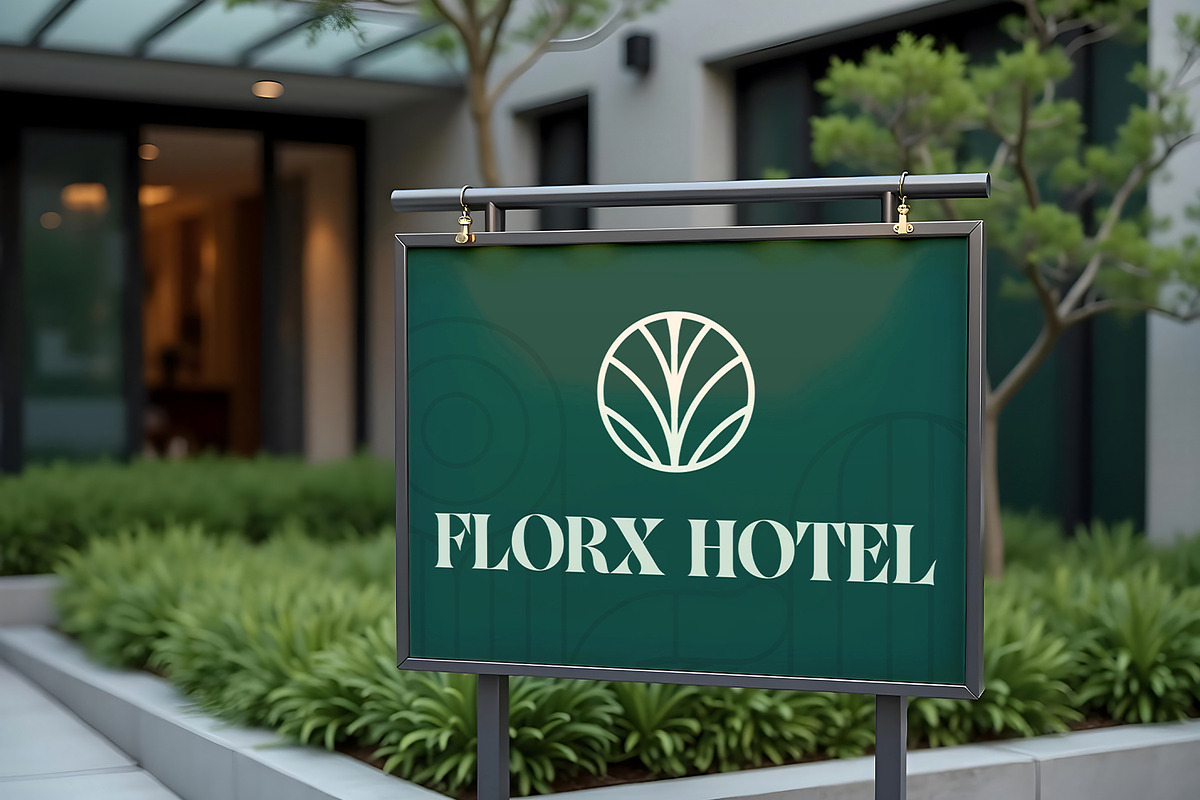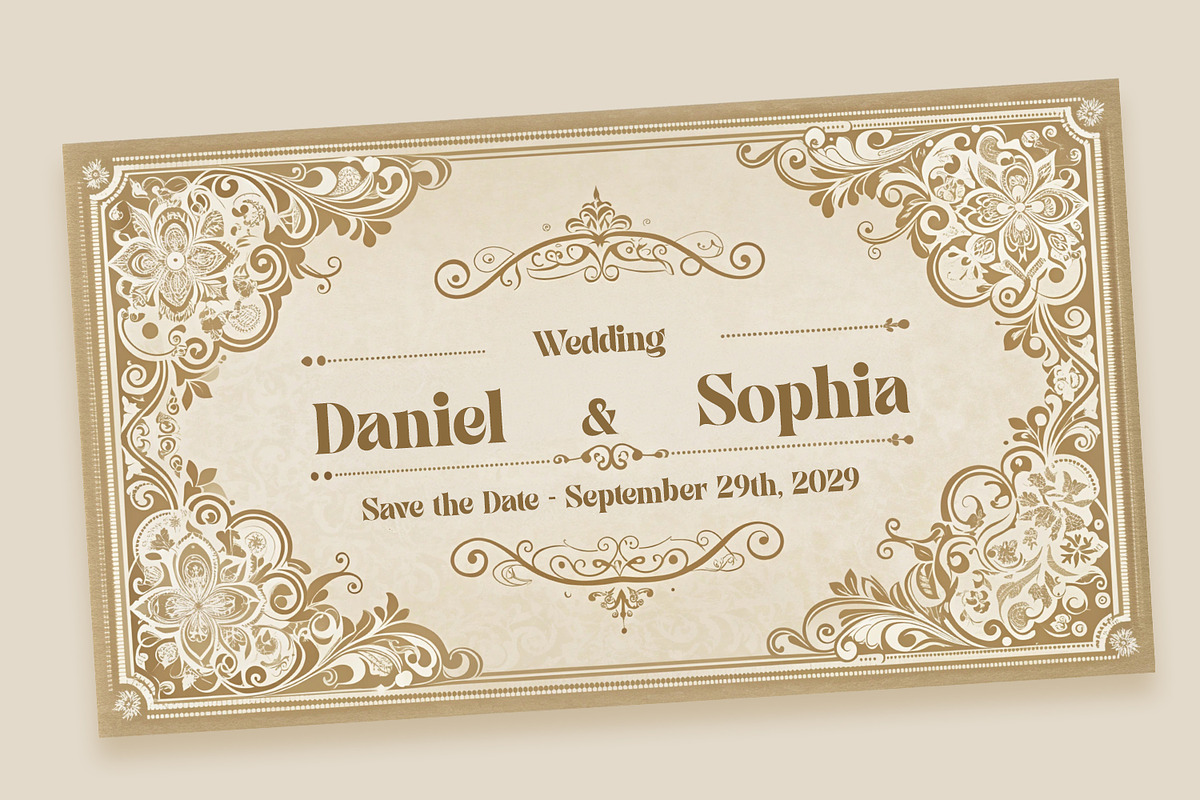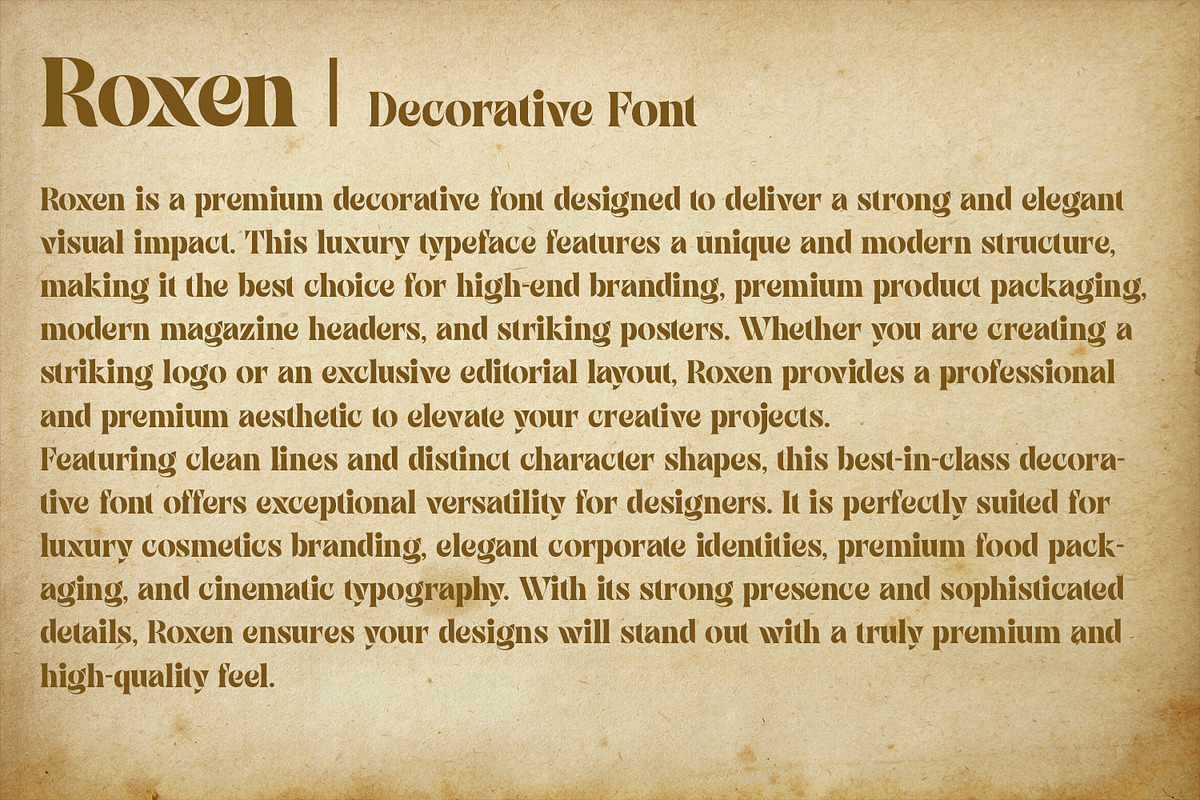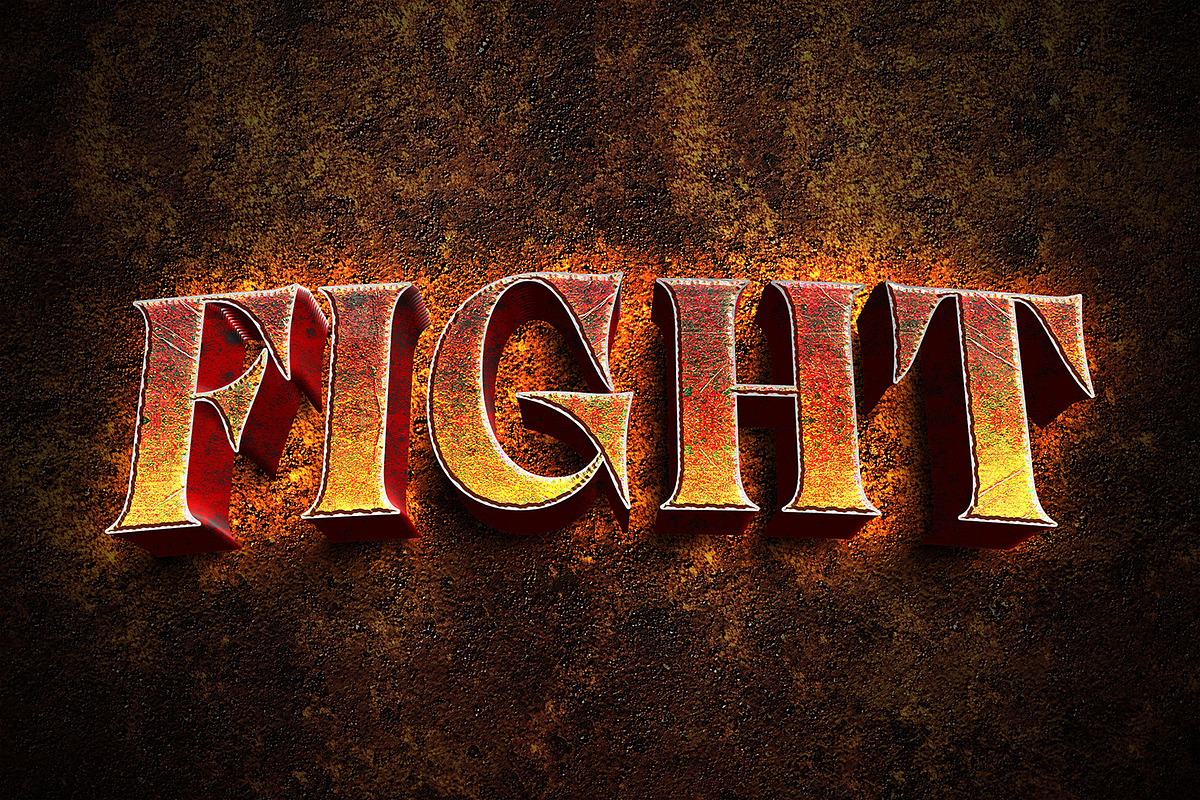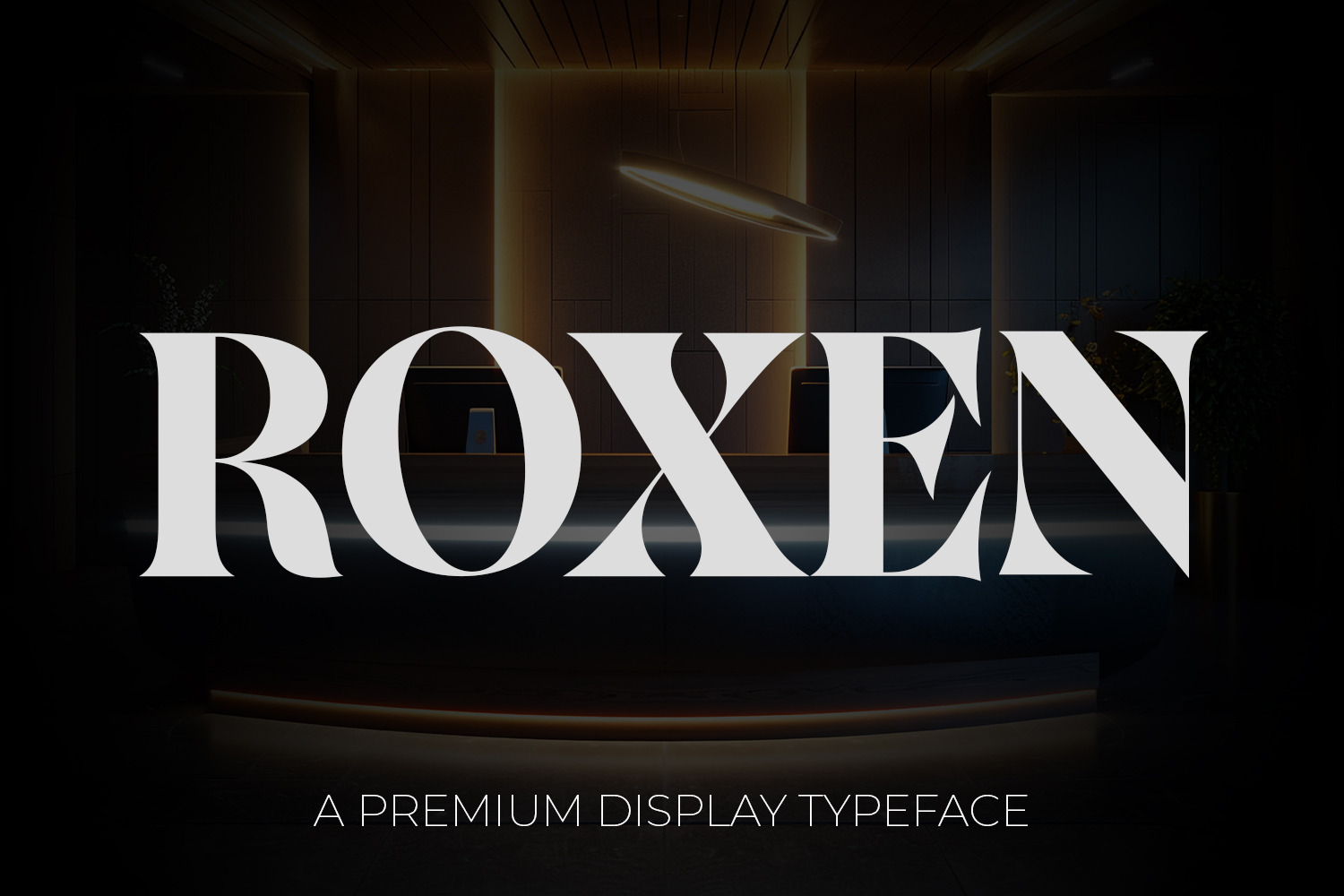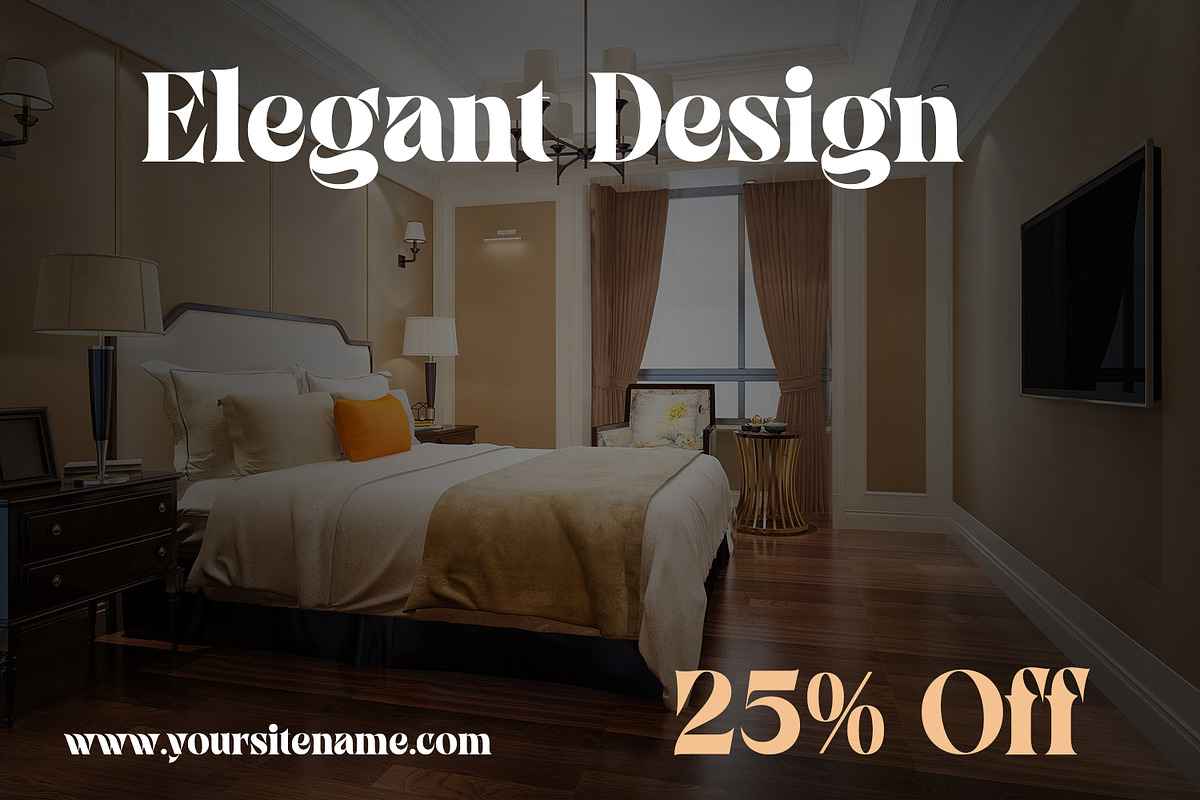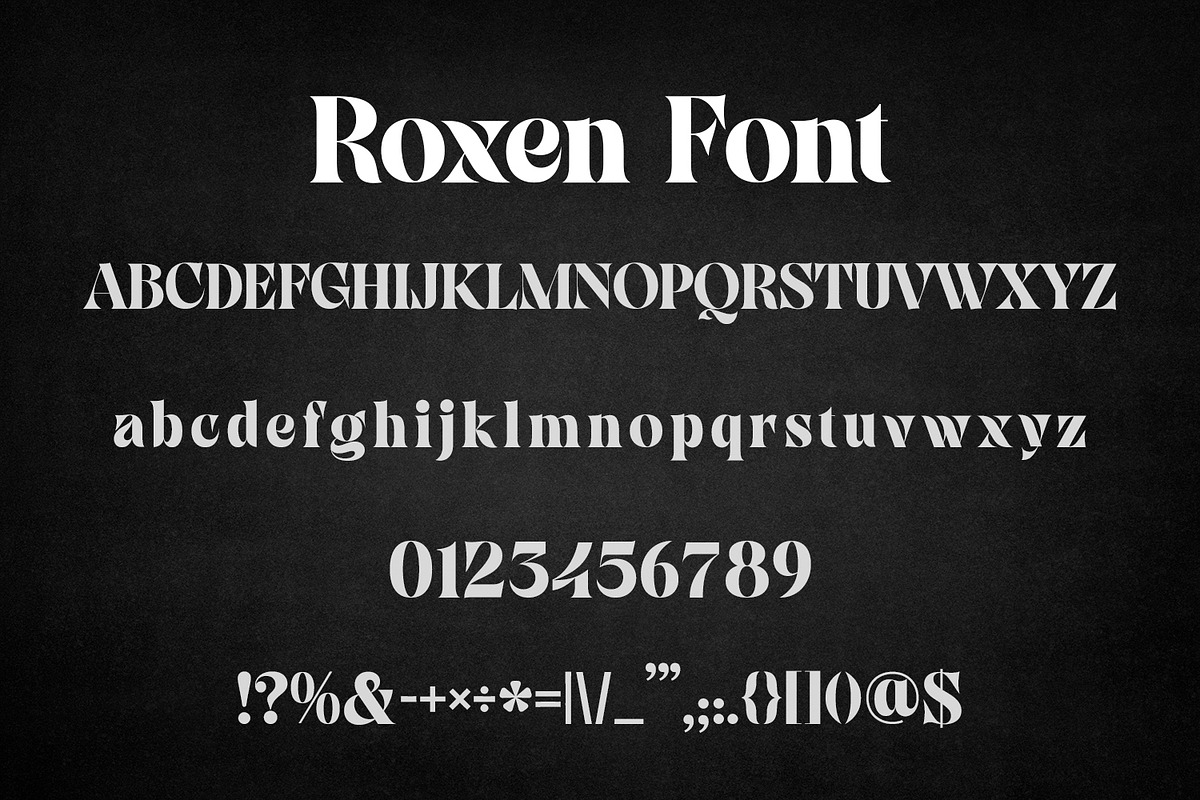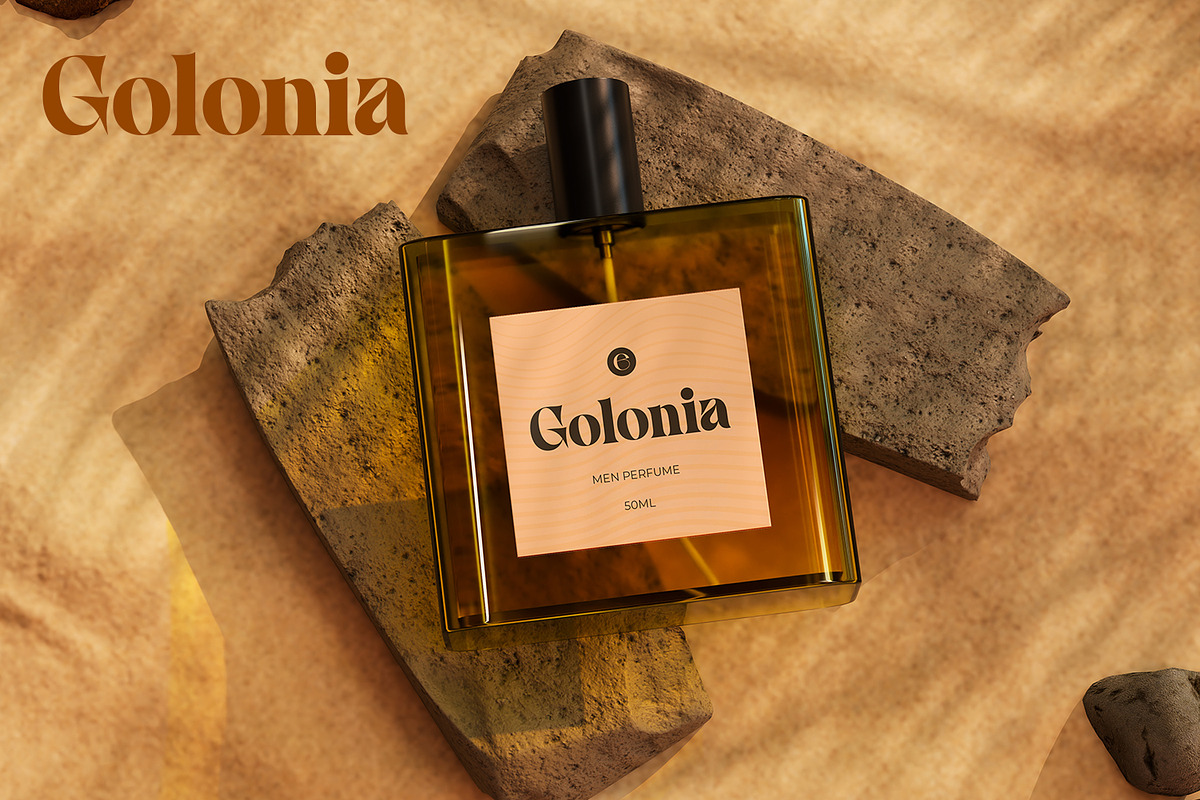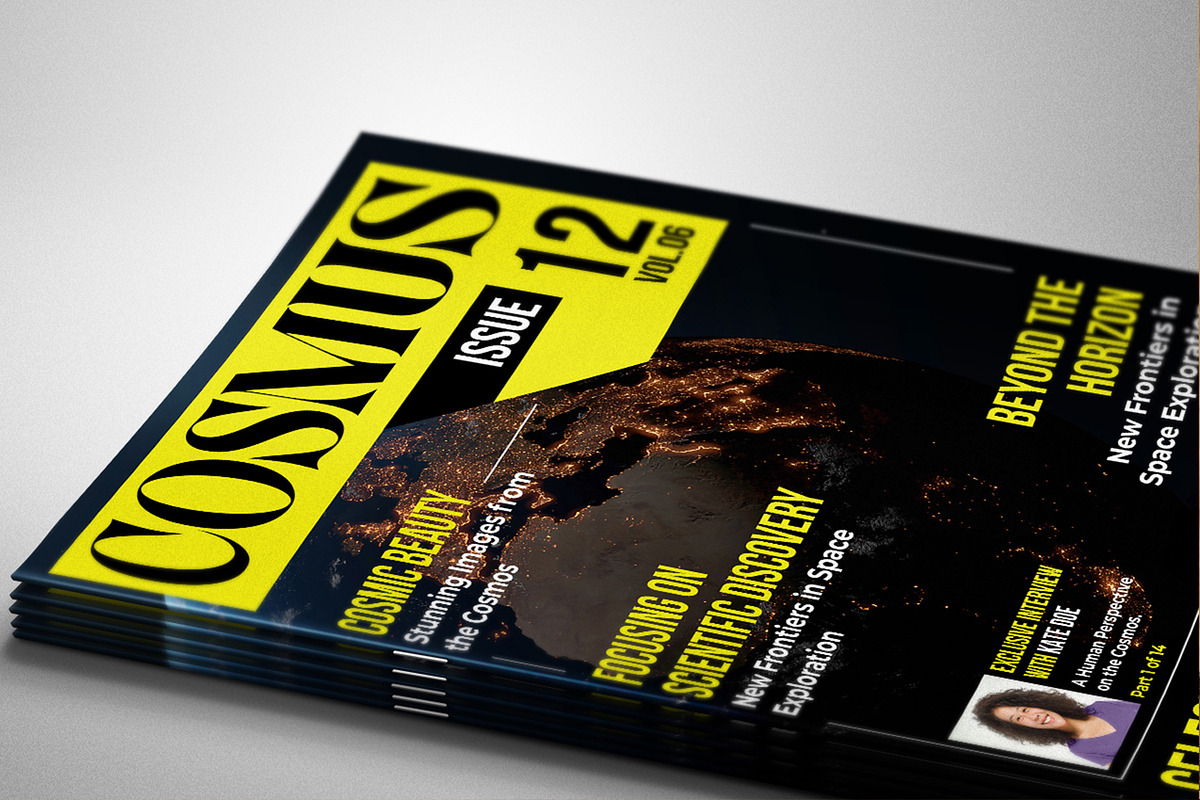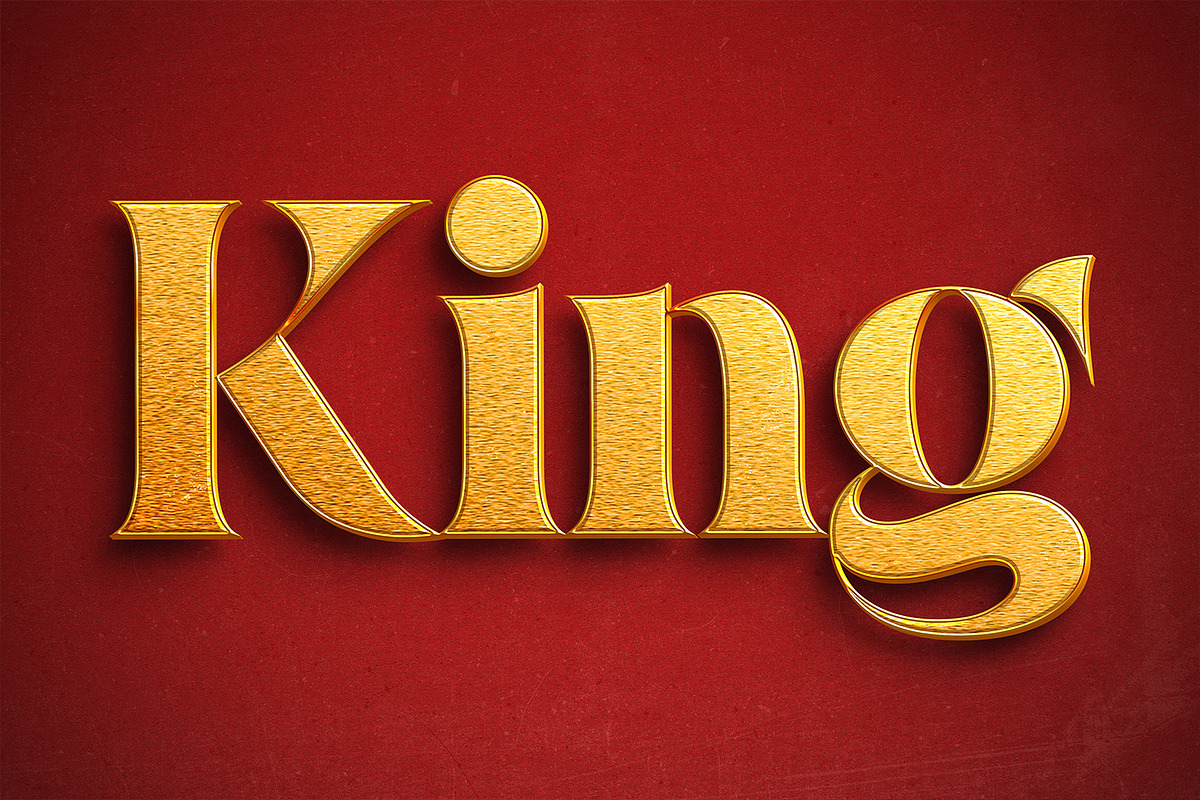
Roxen Premium Bold Display Typeface
Roxen is a premium, luxury decorative font designed to make a bold statement. With its elegant yet strong character shapes, this versatile typeface is the ultimate choice for high-end fashion branding, luxury apparel, premium cosmetics packaging, and stunning wedding invitations. Whether you are designing a modern magazine cover, cinematic movie titles, boutique logos, or striking merchandise and t-shirt designs, Roxen guarantees a professional and best-in-class aesthetic. Elevate your creative projects with this unique display font that perfectly balances classic elegance with modern boldness.